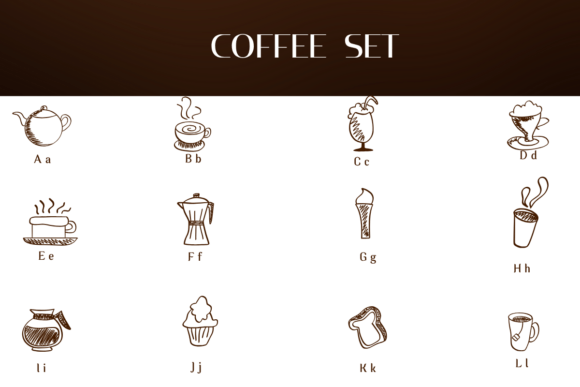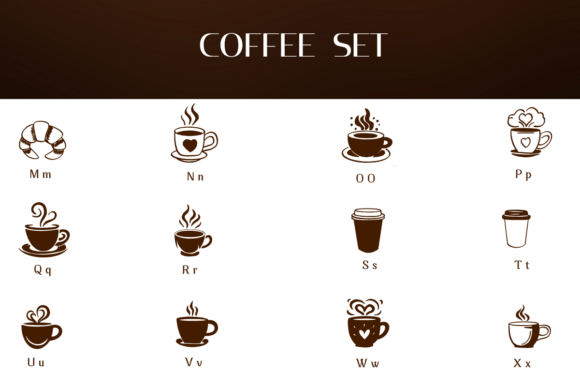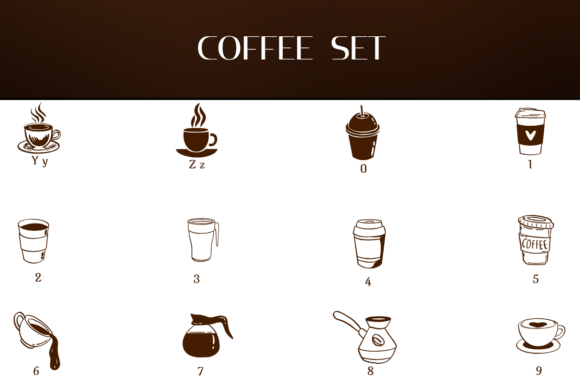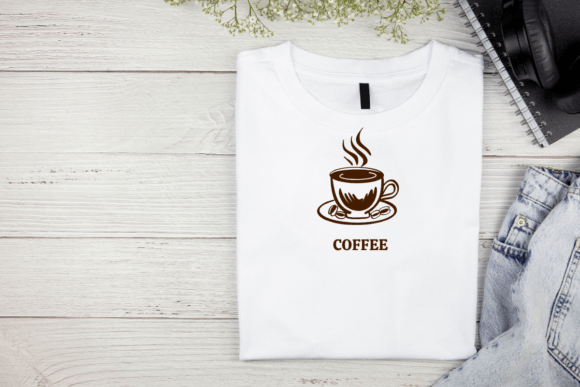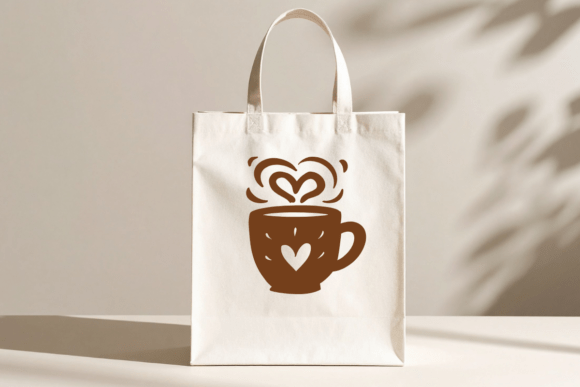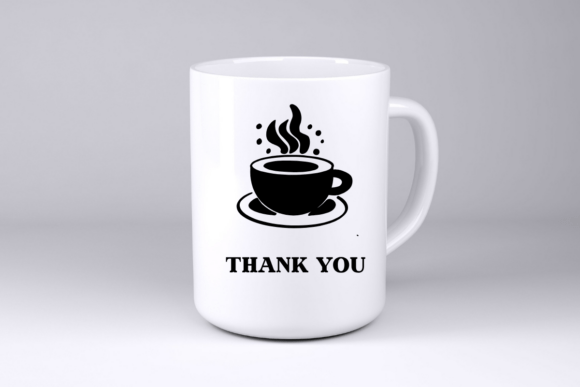
Introduction to Coffee Set Font
There’s something magical about sipping a steaming cup of coffee while brainstorming ideas for your next creative project. The aroma fills the air, and your mind starts racing with possibilities. This is the moment when inspiration strikes, and your imagination runs wild. For designers, this feeling is especially valuable, as it often leads to innovative and unique ideas. And what better way to bring those ideas to life than with a versatile and high-quality font like the Coffee Set Font?
As a dingbats font, Coffee Set Font offers a wide range of creative possibilities. From writing a diary to designing greeting cards, this font is a valuable design resource that can be used in various contexts. And the best part? It’s available for free download, making it an accessible option for designers of all levels. With its transparent background and high-quality design, Coffee Set Font is perfect for adding a touch of whimsy and personality to your designs.
Key Features of Coffee Set Font
- High-quality, professional font design perfect for creative projects and design resources.
- Features a transparent background, allowing for seamless integration into designs and creative projects.
- Includes a range of font styles and weights, providing versatility for designers and artists.
- Unique characteristic: Custom-designed coffee cup icons, adding a touch of personality to any design project.
Honest Review: Coffee Set Font
As a designer, I’m always on the lookout for new and exciting resources to elevate my creative projects. Recently, I came across the Coffee Set Font, and I’m excited to share my honest review with you.
- High-quality design: The font is sleek, modern, and perfect for coffee-related projects or any design that requires a touch of sophistication.
- Transparent background: This feature makes it easy to customize the font to fit your design needs without worrying about a distracting background.
- Limited versatility: While the font is great for coffee-themed projects, it may not be as versatile for other design projects.
- Not ideal for large-scale text: The font may not be the best choice for large-scale text due to its relatively thin lines.
Overall, I’m impressed with the Coffee Set Font’s high-quality design and transparent background. It’s a great addition to any designer’s toolkit, especially for coffee-related projects. While it may have some limitations, it’s a solid choice for designers looking for a stylish and free font download.
Coffee Set Font
To get the most out of the Coffee Set Font, experiment with different font sizes, colors, and styles to find the perfect combination for your design. You can also use the transparent background to create unique and visually appealing designs.